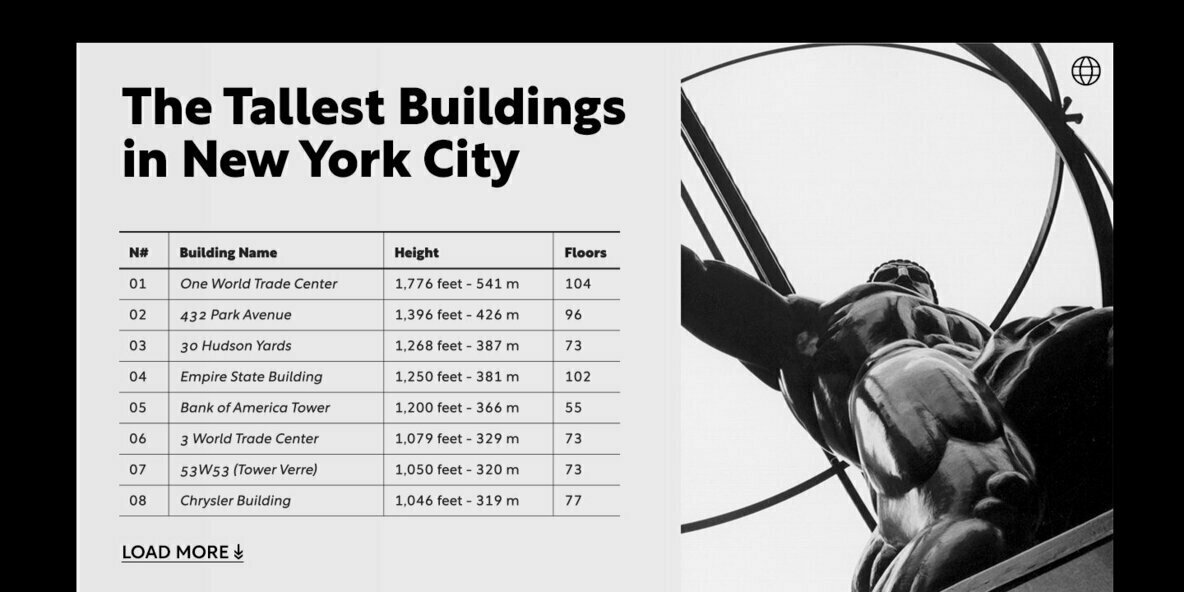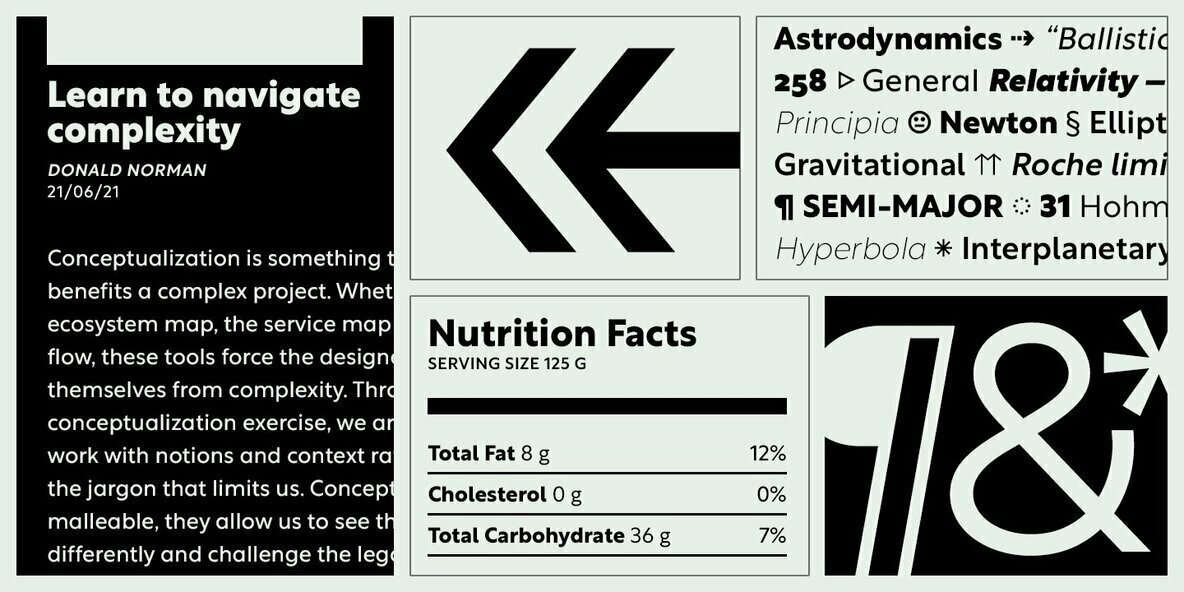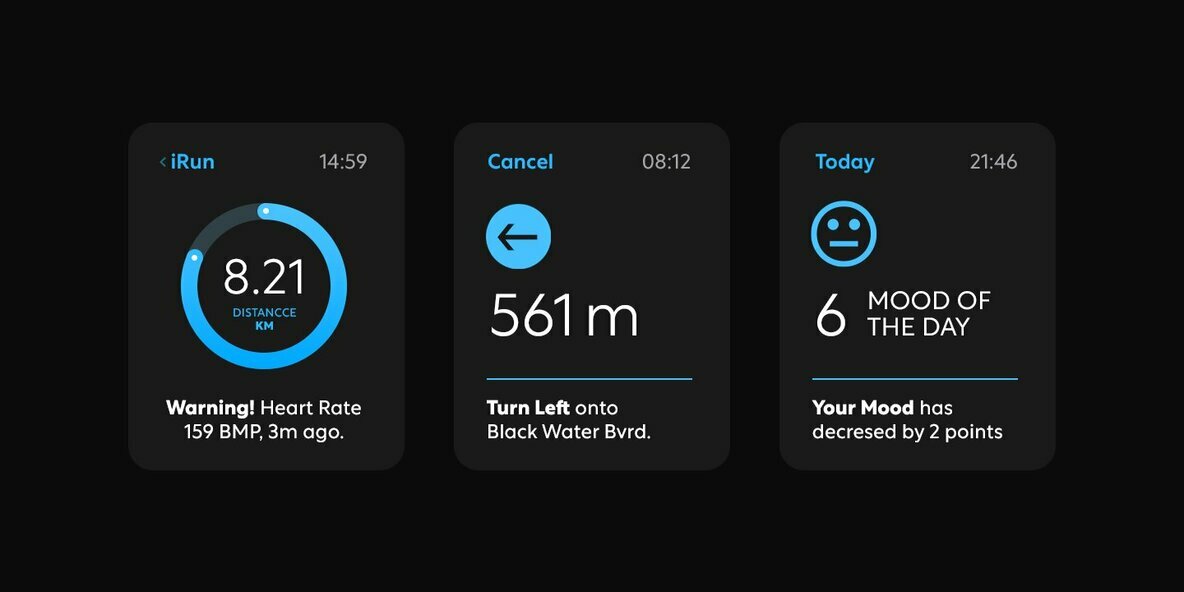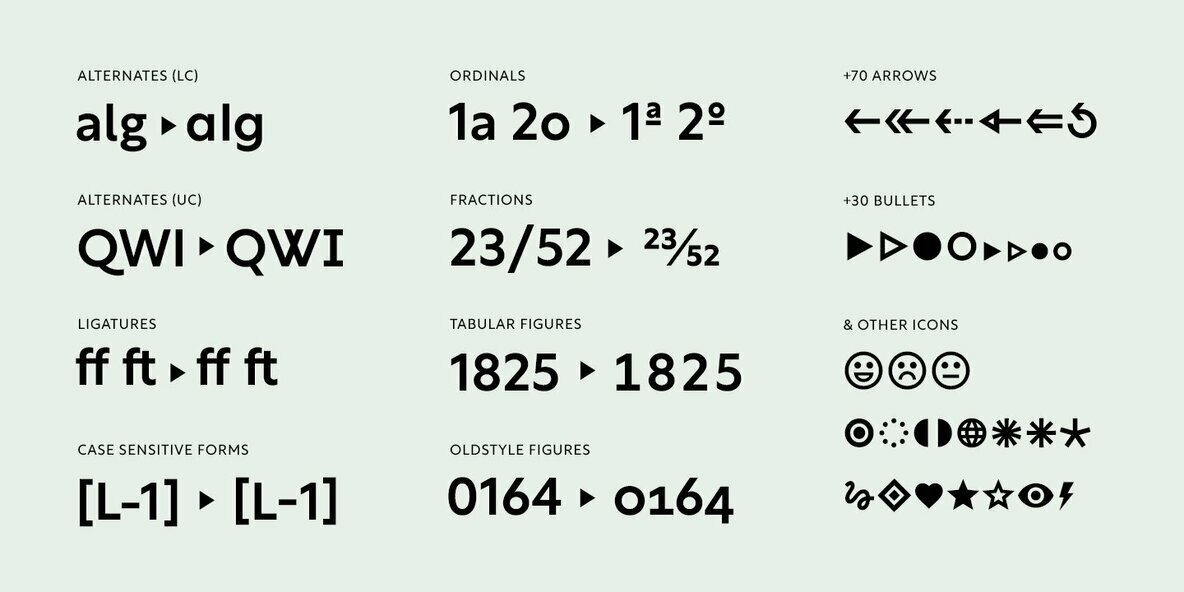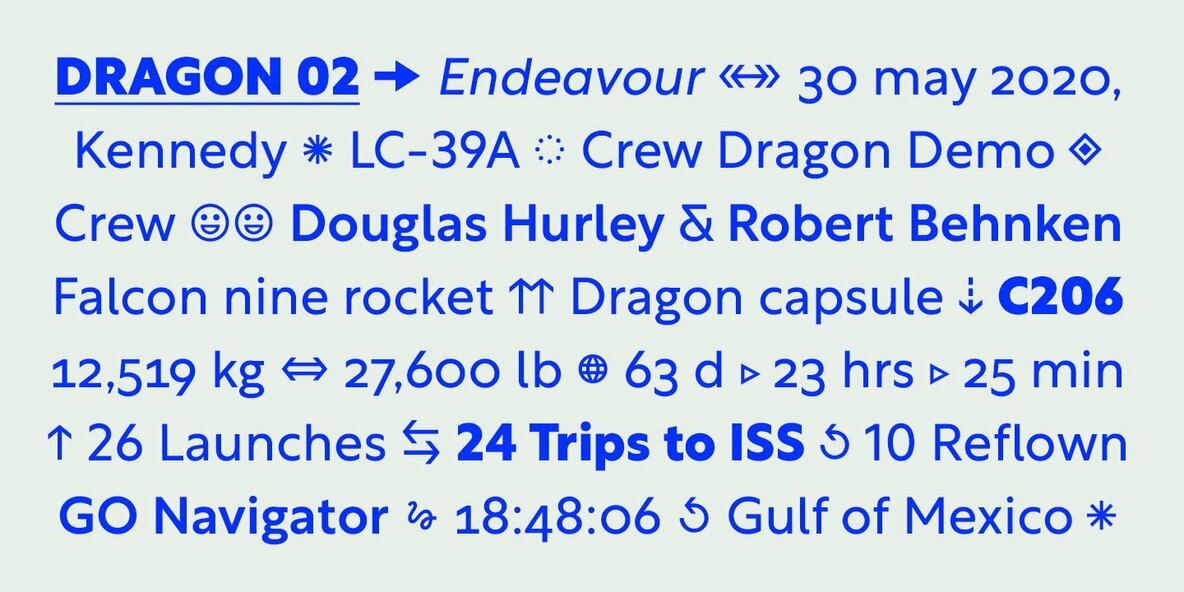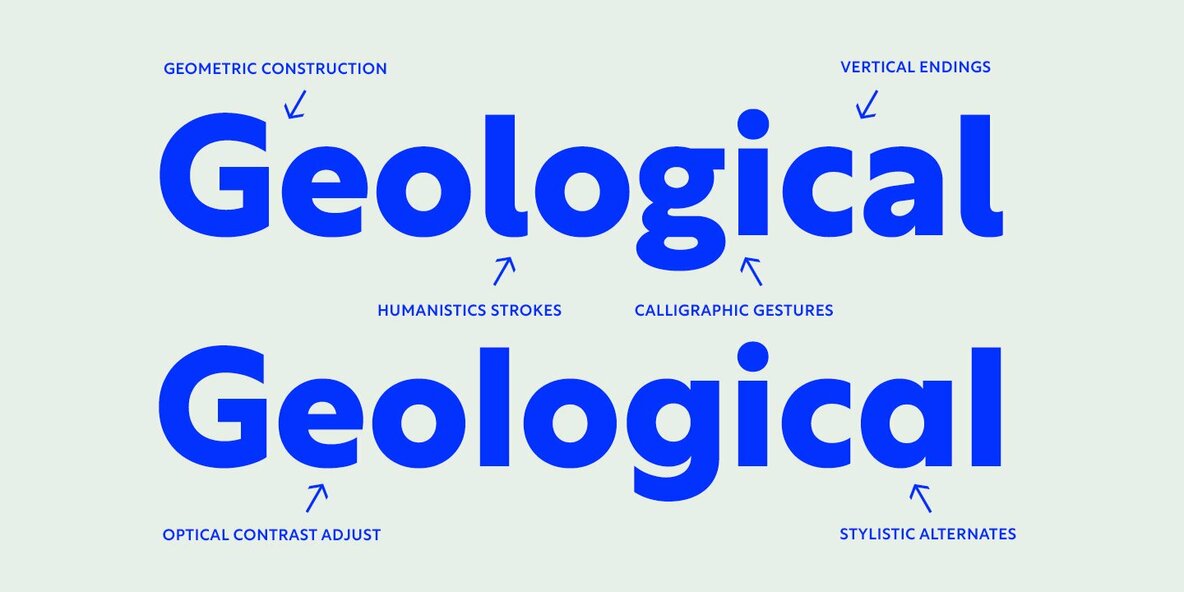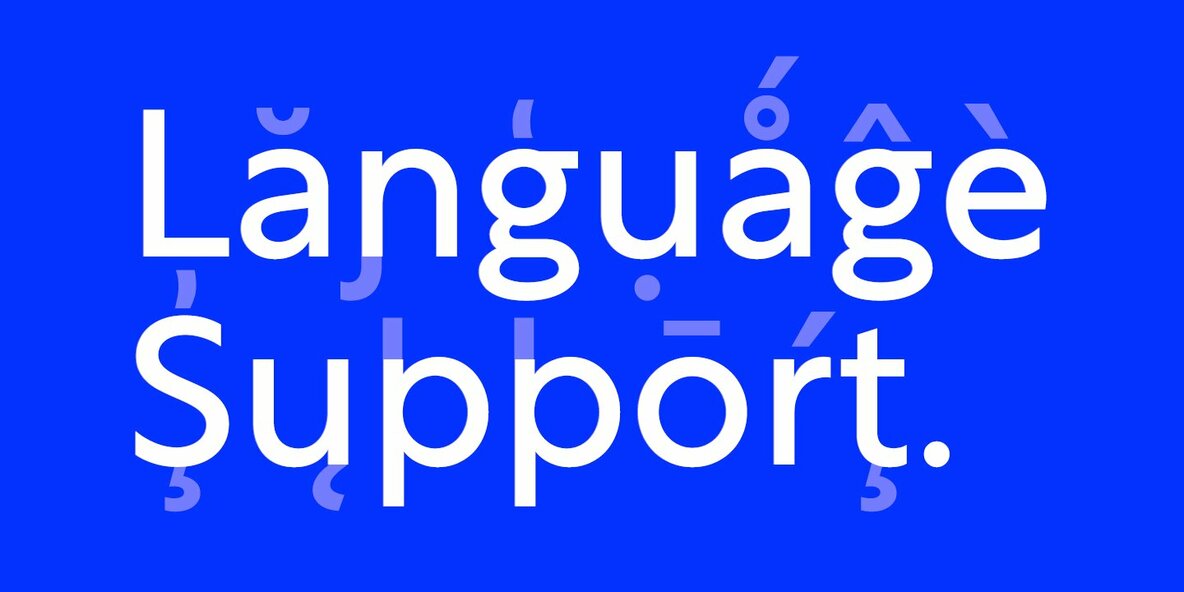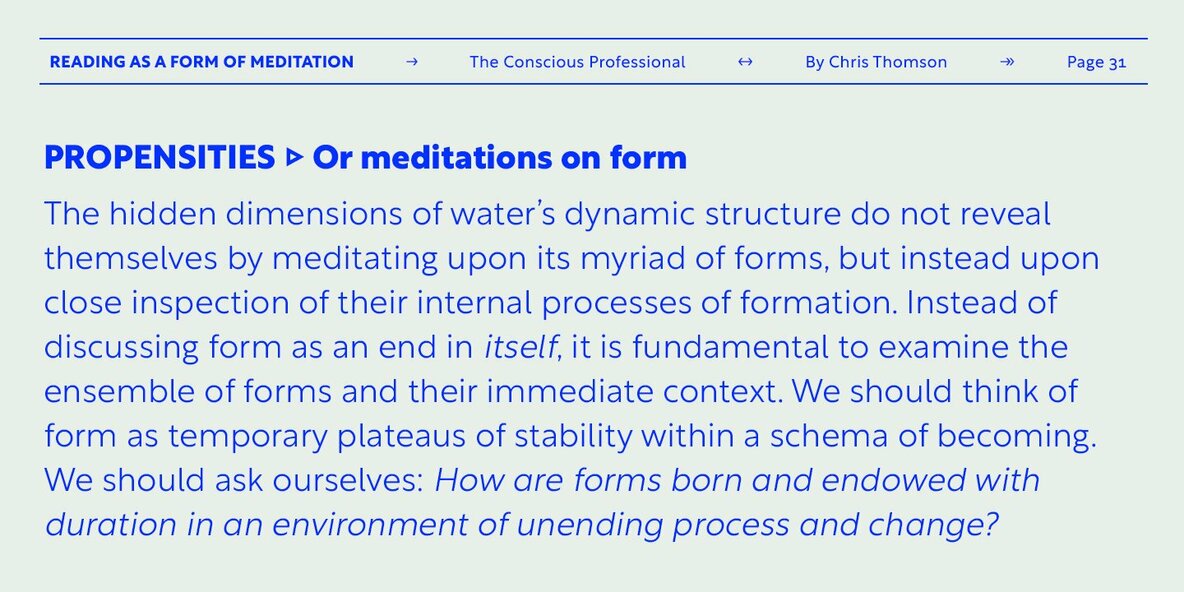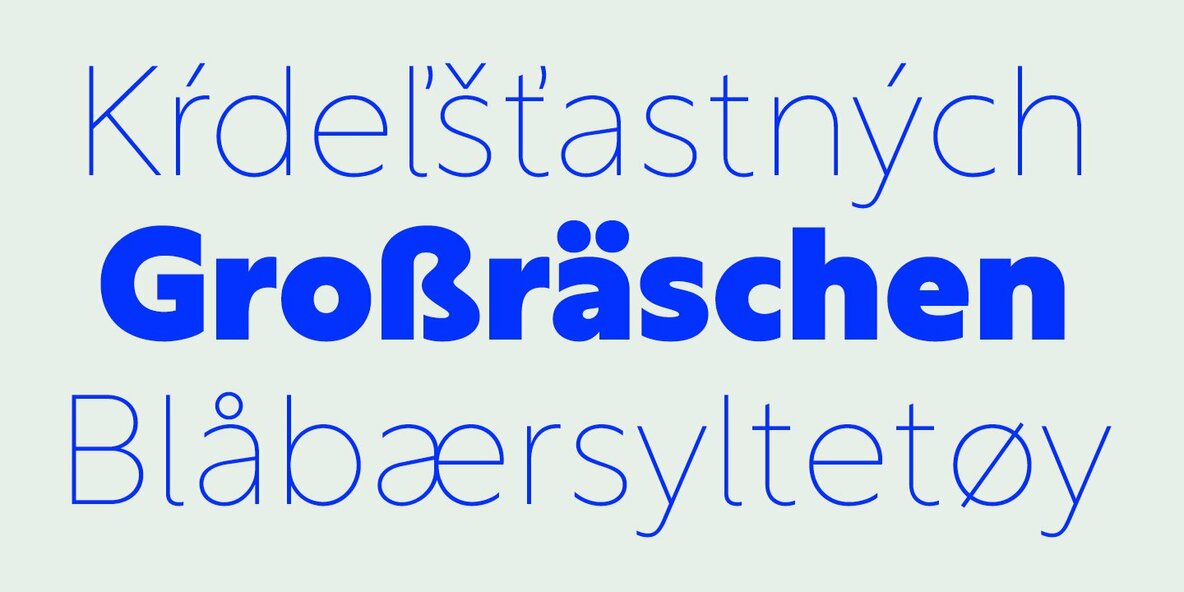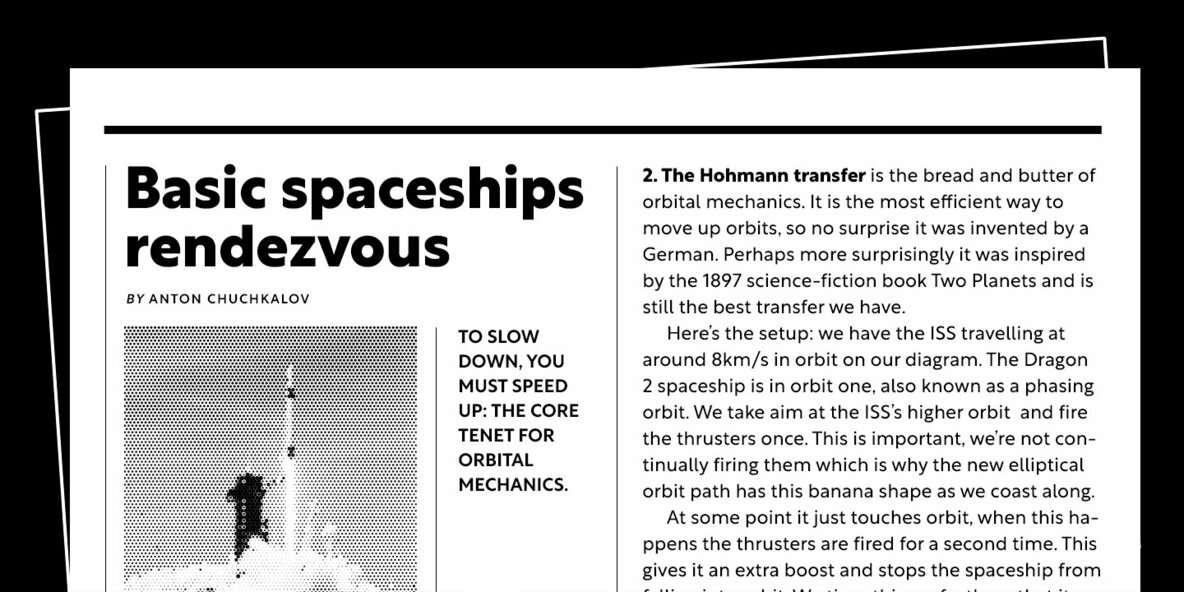
Rustica Font
The world has changed; we want it to change. But it has a history too. Rustica draws back to the sans typeface tradition and updates it for the 21st century; we aim to go back to the humanist values without dismissing the role played by technology.It’s a GeoHumanist sans serif.
Type design looks back at its past to return with renovated strength to its march to the future. Rustica is based on a humanist architecture with the addition of the determination and precision of the geometry of the classic sans of the early 20th century.
Thus, a typographic conception typical of 21st century communications: returning to the human values of closeness and proximity, adding the certainty of knowledge and science.
Rustica is born out of the DNA of our awarded font Rotunda, contributing to this typographic ecosystem humanist notes enhanced by the precision and discipline of geometry.